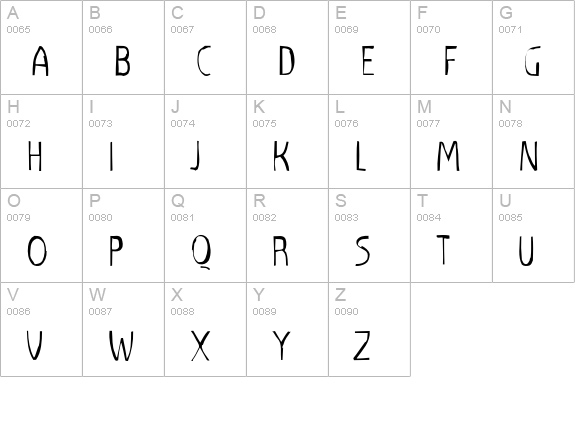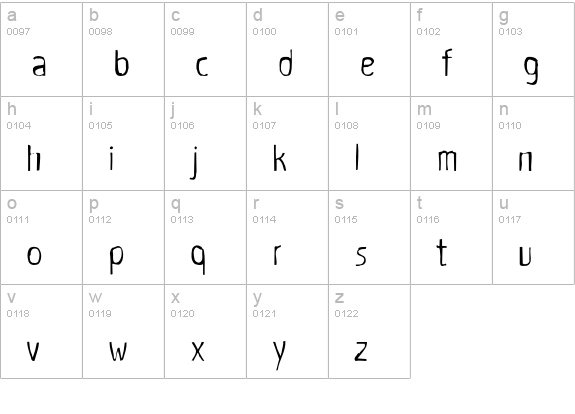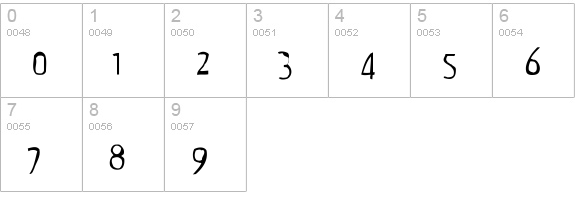
Introducing Voodoo font, a mesmerizing typeface that effortlessly blends mystique and modernity. With its intricate and captivating design, Voodoo font is sure to cast a spell on any creative project. Its unique letterforms are adorned with enchanting curves and sharp edges, creating a visual feast for the eyes. But what makes Voodoo font even more appealing is that it is freely available to download at FontsMarket.com. Yes, you read that right – this remarkable font can be yours at no cost. Whether you are a professional designer looking to add a touch of magic to your creations or an aspiring artist exploring the world of typography, Voodoo font offers endless possibilities. Imagine using Voodoo font in your branding materials, website designs, or even as decorative elements in your personal projects. Its bold and distinctive appearance will captivate your audience, leaving a lasting impression. From posters and packaging to social media graphics and invitations, Voodoo font is your secret weapon for creating stunning visuals. Not only does Voodoo font boast an exquisite design, but it also brings utmost versatility to the table. With multiple weights and styles to choose from, you can effortlessly adapt this font to suit any project or mood. Whether you prefer the elegance of Voodoo Regular, the edginess of Voodoo Bold, or the playfulness of Voodoo Italic, this font has got you covered. So why wait? Unleash the power of Voodoo font and let your creativity soar. Download it for free at FontsMarket.com and discover a world of endless design possibilities. With Voodoo font in your toolkit, you'll be able to cast a spell of enchantment on your audience like never before.